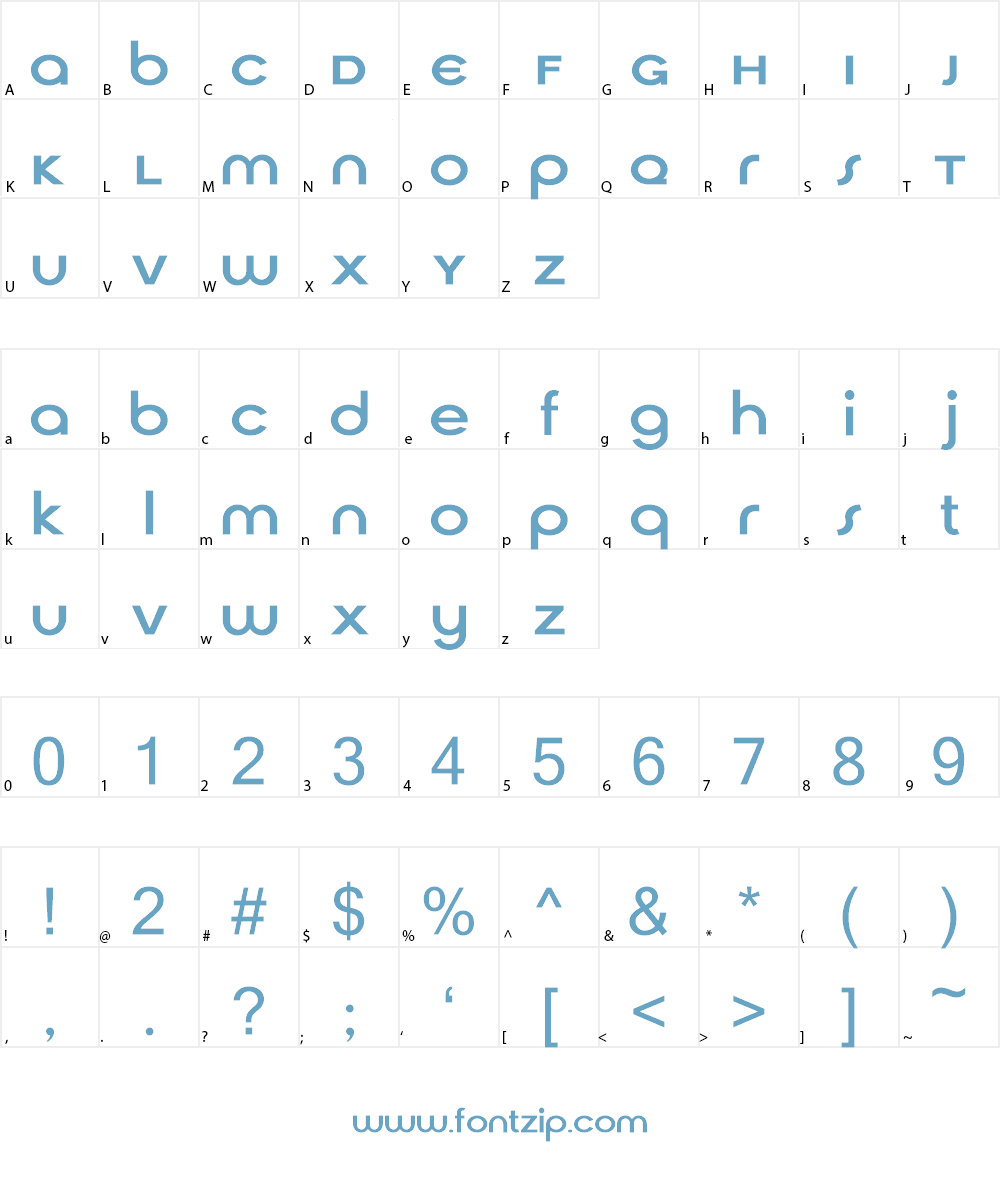
This is another font that started life as a logo design project. The project was shelved and my intention was to finish the font as a standalone project, but other commitments have made this impossible.
The font was originally going to contain only lower case characters, but I've mapped a set of characters to the upper case slots, which contains a few capital forms.
Aside from full stop, comma, colon and semicolon, there are no punctuation marks or other symbols. Given its limitations, I'm making Cirqua available free for personal use with a commercial licence priced at just $2 (USD). Licences can be purchased by clicking the 'donate' button.
Update 02/08/14 (2nd August 2014) - Version 2.1 has been released. Around 200 characters have been added, covering a decent range of European languages.